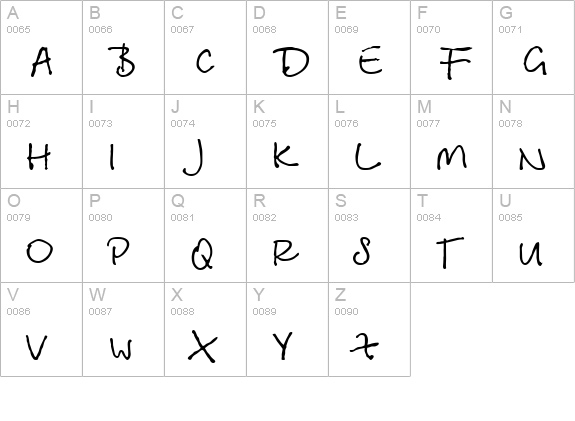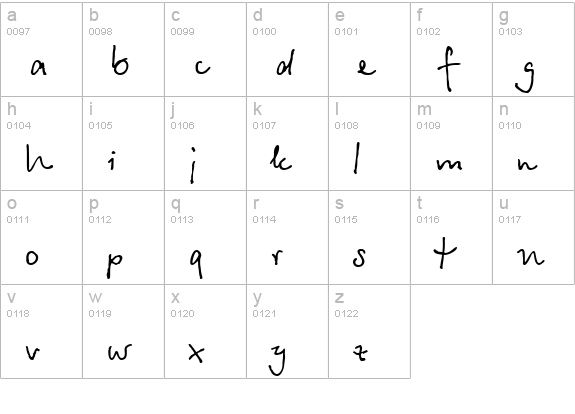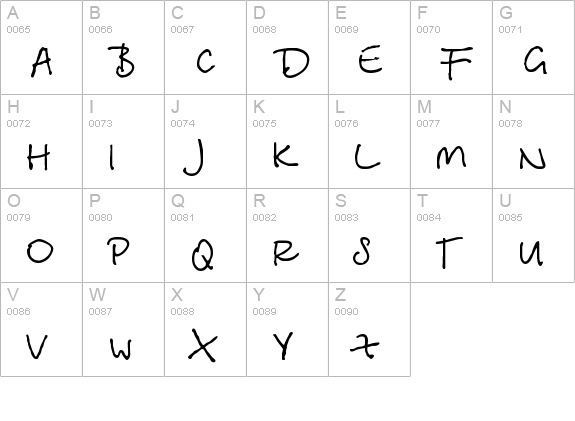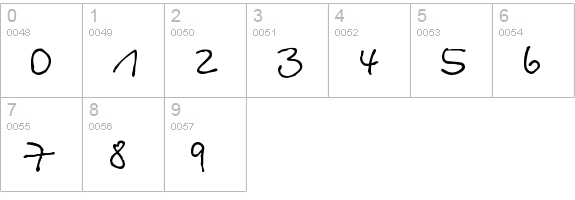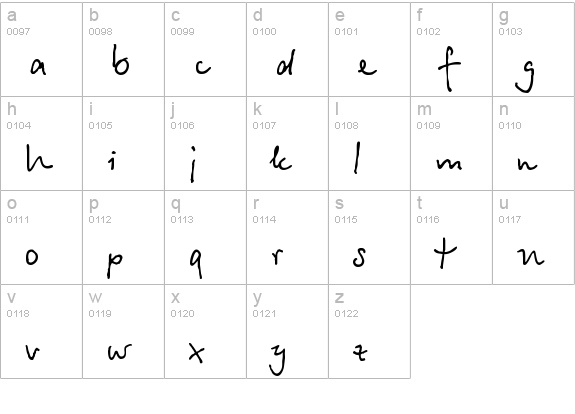
BetinaScript Font Details
BetinaScript is a beautifully crafted handwritten font that exudes elegance and charm. With its flowing lines and delicate curves, this font is perfect for adding a touch of sophistication to your designs. Whether used in invitations, branding, or social media graphics, BetinaScript will surely captivate your audience with its unique style. The best part? BetinaScript is completely free to download at FontsMarket.com. Yes, you heard that right - you can enjoy this stunning font at no cost. So why wait? Elevate your projects with BetinaScript today and let your creativity shine!